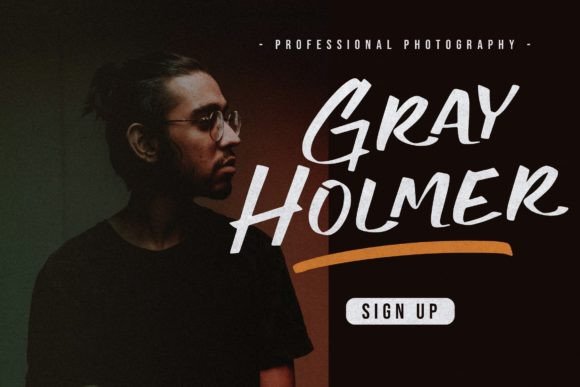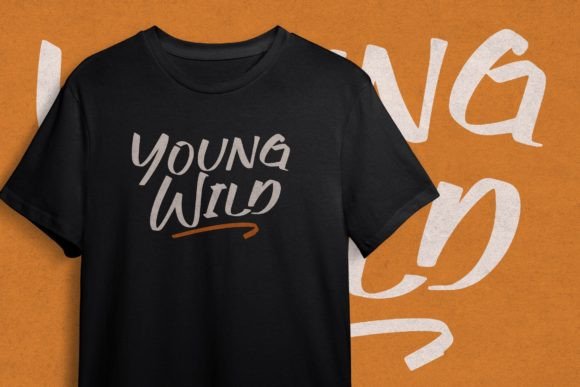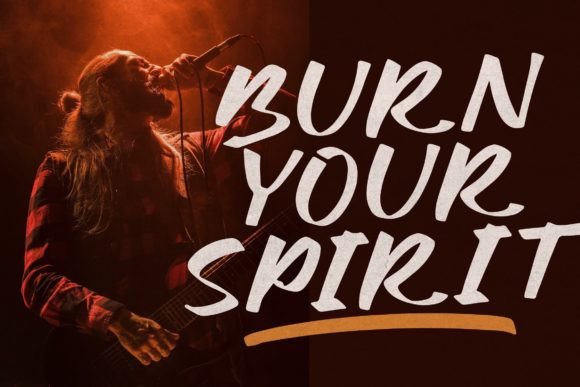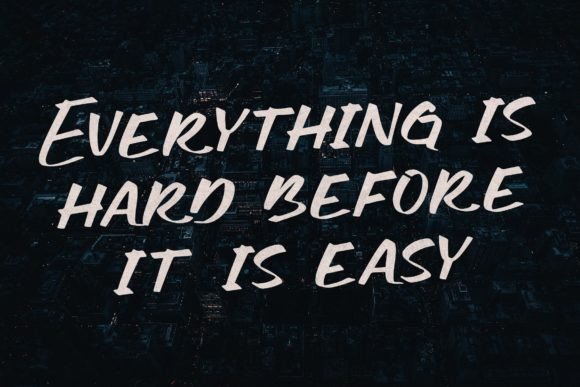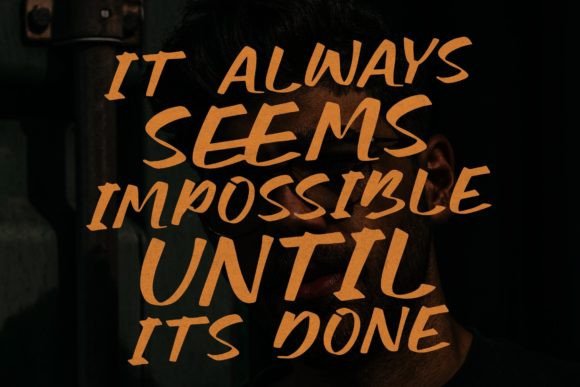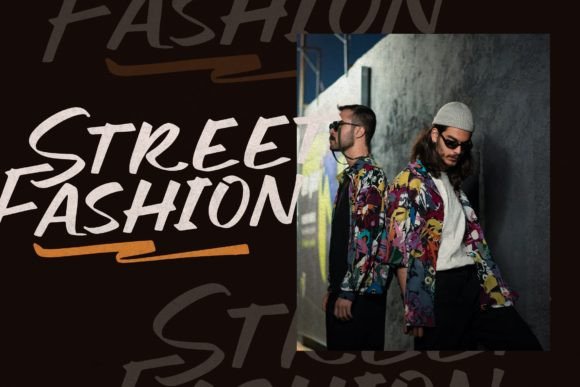
The Abnormal Font: A Beautiful Script Touch for Your Creative Projects
What is Abnormal Font?
Abnormal is a display handwritten font that is suitable for a wide range of projects, including logos, branding projects, homeware designs, product packaging, mugs, quotes, posters, shopping bags, T-shirts, book covers, name cards, invitation cards, greeting cards, labels, photography, watermarks, special events, and all your other lovely projects that need a beautiful script touch.
- ✨ Unique and elegant handwritten style
- ✅ Highly legible, even at smaller sizes
- 💫 Supports OpenType features, glyphs, and stylistic alternates
- 🎨 Versatile and can be used for a wide range of projects
- ⚠️ May not be suitable for body text or long-form content
- 🤔 Limited availability of certain characters or glyphs
The Designer Inspiration Behind Abnormal Font
The Abnormal font was designed with the intention of creating a unique, yet elegant script font that would add a touch of personality to any design project. The designer aimed to create a font that was both beautiful and versatile, suitable for a wide range of applications. While the designer’s background and inspiration are shrouded in mystery, it’s clear that their goal was to craft a font that would inspire creativity and add a touch of whimsy to designs.
Q: Is Abnormal font suitable for body text or long-form content?
A: While Abnormal font is highly legible, it’s primarily designed for display purposes. For body text or long-form content, consider using a more traditional font.
| Font Name | Abnormal Font |
| Author | Glorytype Studio |